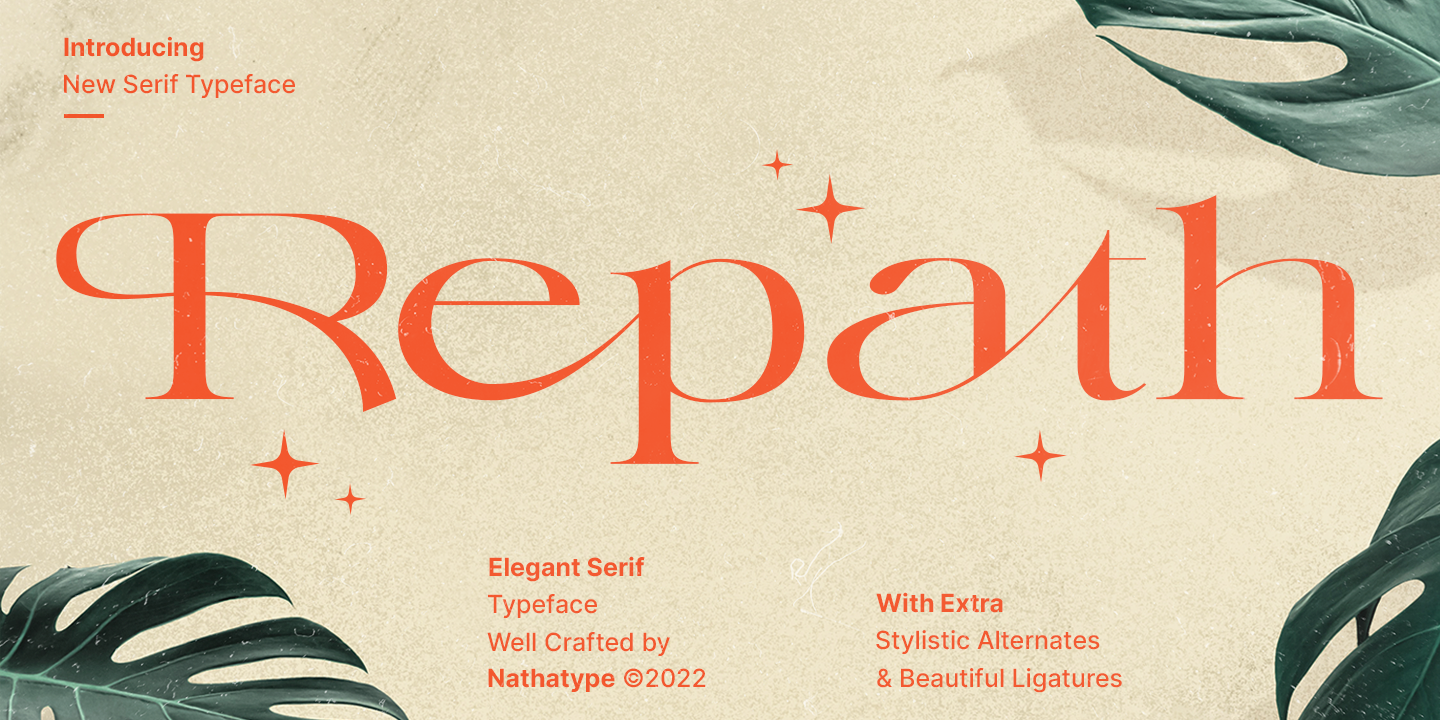
Please note, you must purchase this font for commercial use. You can download Repath Font Free Download for testing purposes to discover its modern and dynamic character. Repath Font features sleek, minimalistic aesthetics suitable for contemporary branding, technology-related projects, corporate materials, headlines, and digital interfaces.
Repath Font combines clarity with stylish simplicity, making it ideal for visually impactful and professional communications. Designers choose Repath Font Free Download to test its compatibility with diverse creative projects, appreciating its clean lines, readability, and versatility across multiple formats and mediums.
This typeface includes multilingual character support, making it practical for international projects and global brand consistency. Always remember, the Repath Font Free Download is intended exclusively for personal testing purposes. To utilize this font commercially, you must obtain the proper license.